30+ Awesome Free Fonts for Kick-Ass Web Designs
As we examined last week in our Font Replacement Review, new technologies have liberating web typography from the ordinary web safe fonts to a truly wide open horizon of new and bold and imaginative typefaces. It’s easier than ever to include your own custom fonts in a web design using various font replacement technologies. Today, we’ll review over 30 fonts that are worthy of your own font library.
Code
Code, is a high quality, fresh and clean font designed by Manual Kerning that looks awesome in it’s bold style. It is applicable for any type of graphic design – web, print, motion graphics etc and perfect for t-shirts and other items like posters, logos.
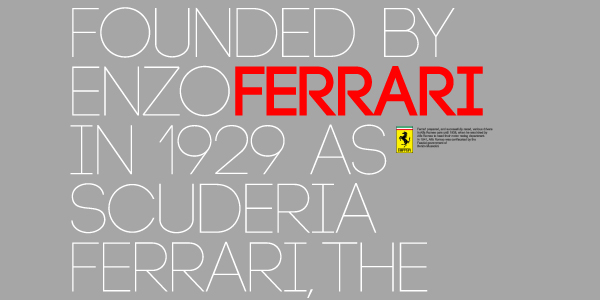
Raleway
Here’s one from the incredible “League of Moveable Type” library, which you should bookmark instantly if you haven’t already. Raleway is an elegant sans-serif typeface, designed in a single thin weight. It is a display face that features both old style and lining numerals, standard and discretionary ligatures, a pretty complete set of diacritics, as well as a stylistic alternate inspired by more geometric sans-serif typefaces than it’s neo-grotesque inspired default character set.
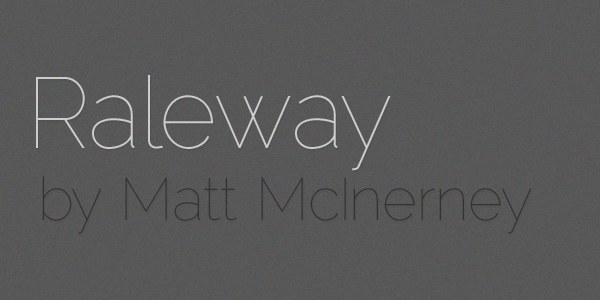
Goudy Bookletter 1911
Another from The League of Moveable Type. This throwback font brings instant authenticity and a sense of tradition to any design. These are letters that take command of the space around them; notice, for instance, the bowed shapes of the v and w.
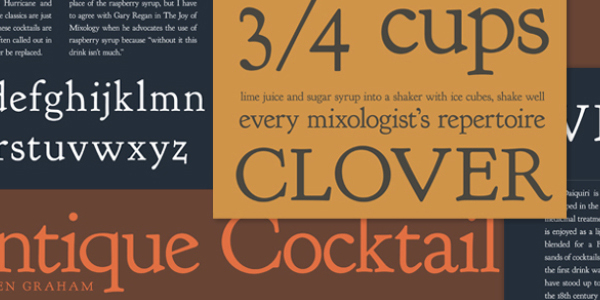
Nevis
Nevis is a strong, angular typeface and is ideal for headings, text, buttons and everything in between.. It’s assertive and bold, but manages to retain a friendly tone, and looks especially good when used in all caps.
Jura
Jura is a elegant serif typeface of narrow proportions with distinguishing details. The rounded, wedge shaped serifs offer a more contemporary feels than many serif fonts, while maintaining legibility even at small sizes.
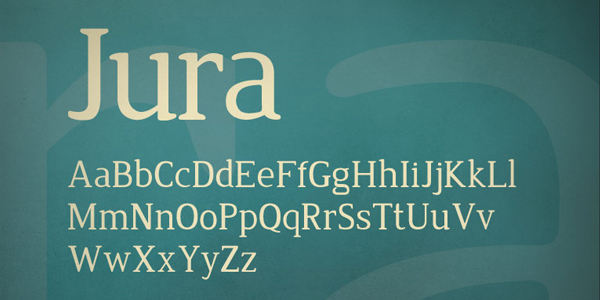
Anivers
Anivers is robust and rigid, forgiving, flexible and elegant … and also suitable for a broad use: from a stationery to a poster headline. From an intro in a magazine to a base for a logo.
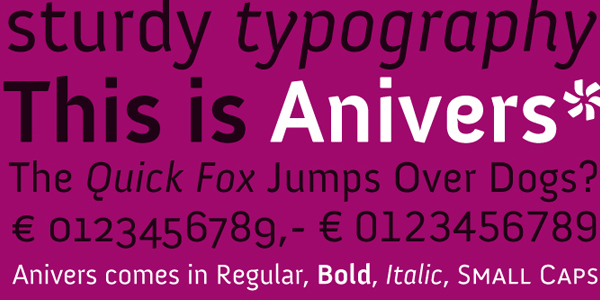
FR Hopper
FR Hopper is a sans based on geometric forms still having a friendly personality. It is inteneded for mid-length texts, captions, titles and almost any other occasional use – posters, flyers and even for web sites. The 430 and 431 weights are free and include a commercial license!
ST Ryde
St Ryde is a humanistic sans-serif with a slight touch of a script typeface. The most significant aspect of the typeface is the combined sharp and round treatment of the stroke endings. The complete Ryde Family contains five weights including real matching italics, so you can choose from thin, light, regular, medium and bold. The standard version comes free and includes a commercial license.
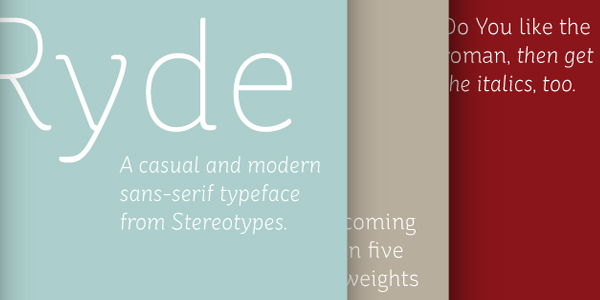
Indento
Indento is a multi-purpose modern geometric slab serif for headlines, posters, branding but fairly legible to be used as longer text. The straight and rounded corners combined with deep cuts and asymmetric serifs gives it a distinctive look while still keeping it’s rigorousness and legibility. The standard version comes free and includes a commercial license.
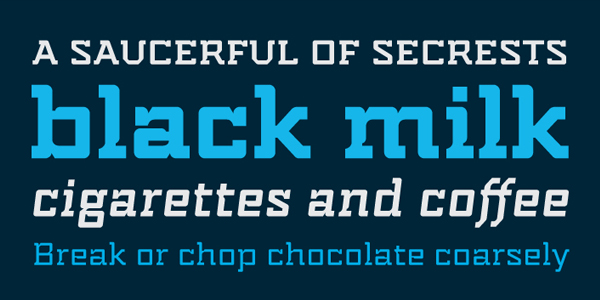
Kaine
Kaine is a bold slab-serif typeface influenced by Spagetti Western posters of the 1960s. The standard block version comes free and includes a commercial license.
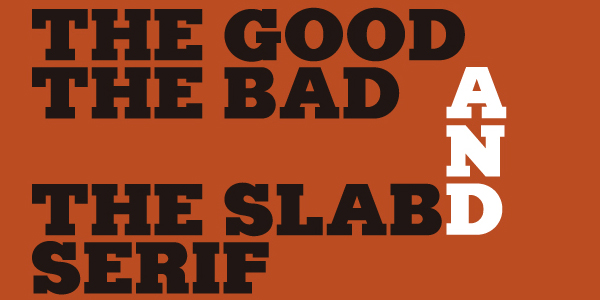
Graublau Sans Web
A German typeface with lots of rich history in the print field makes its way to the web. Allows @font-face embedding